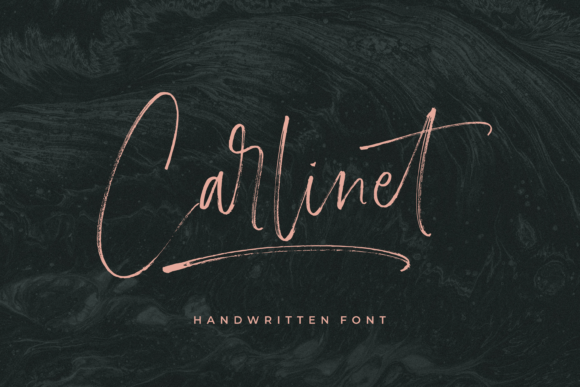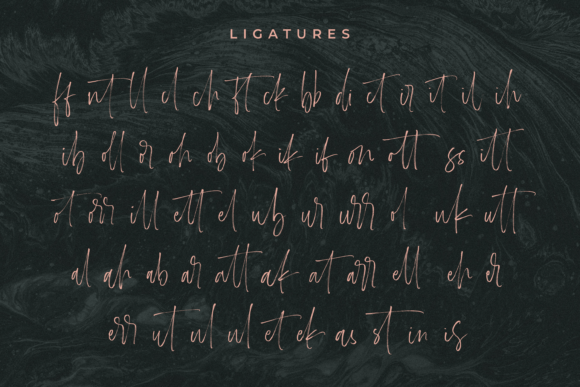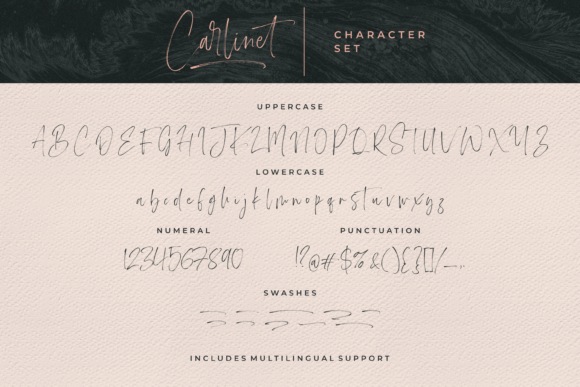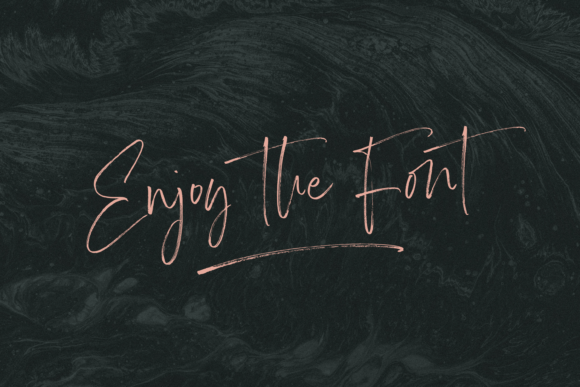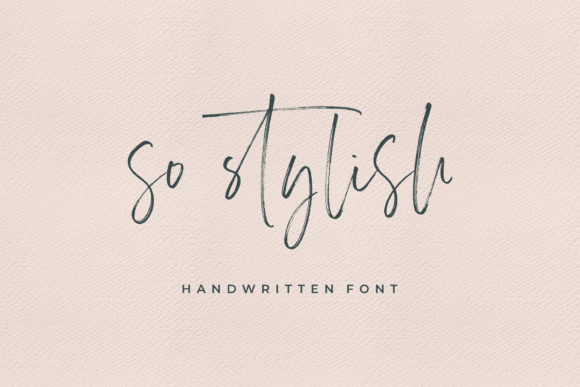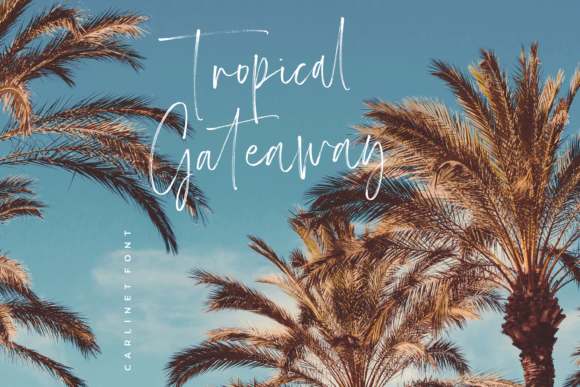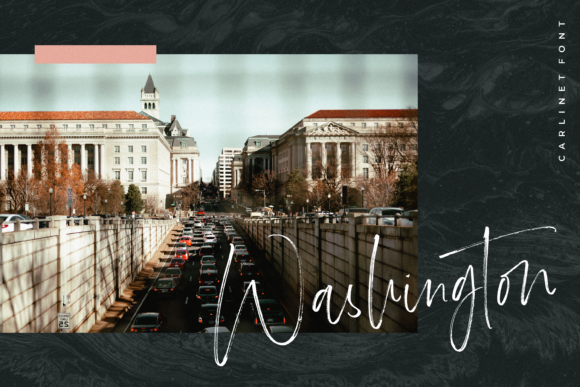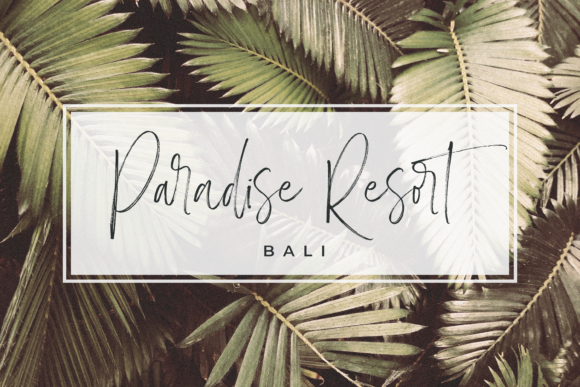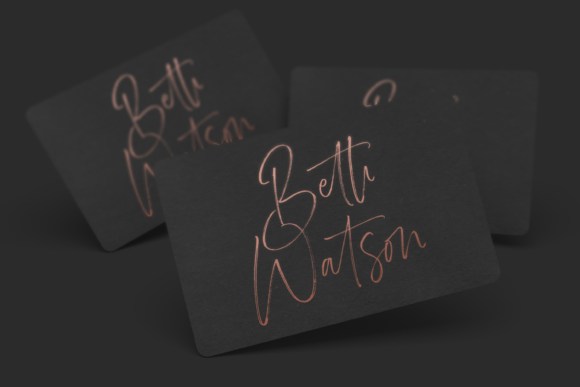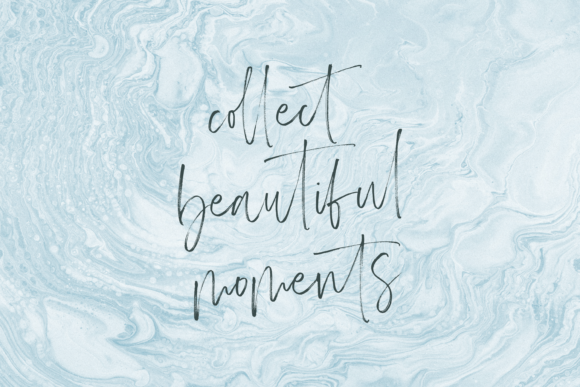
Carlinet Font
About Carlinet Font
Carlinet perfectly reflects sophistication and authenticity. This unique script presents a stylish solution to any design need.